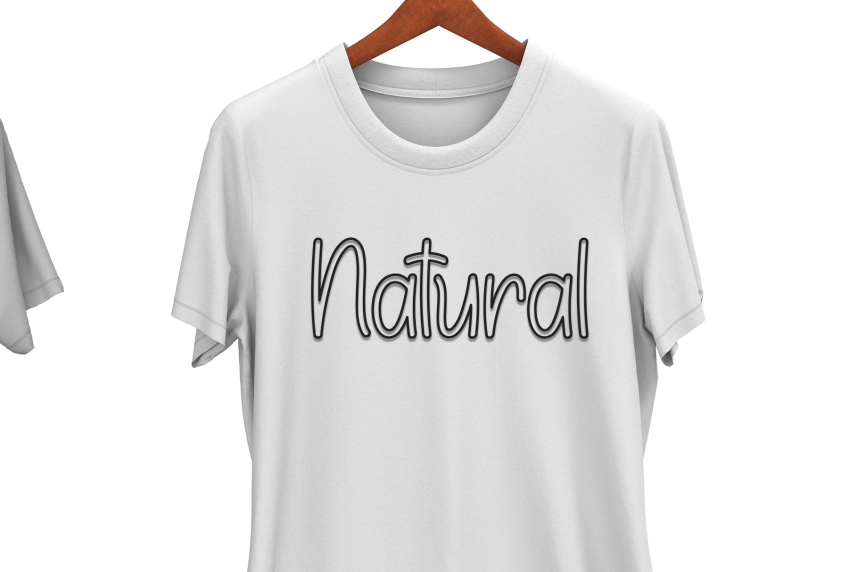
Lineart Sketching – Creative Style Font
Lineart Sketching – Creative Style Font is a sweet and friendly handwritten display font. Cute and fun, this font is ideal for writing wedding invitations, cards, or any other design that might need a playful touch!